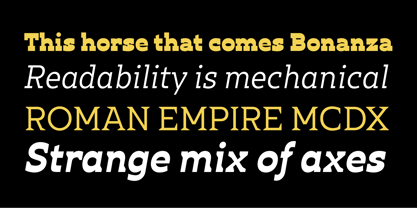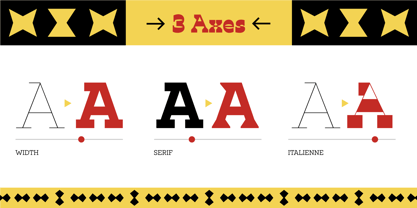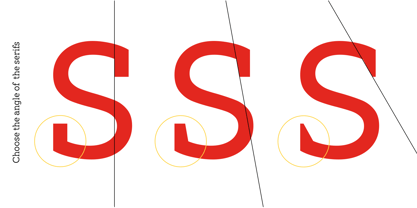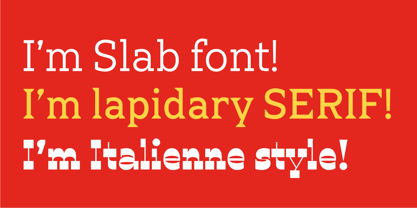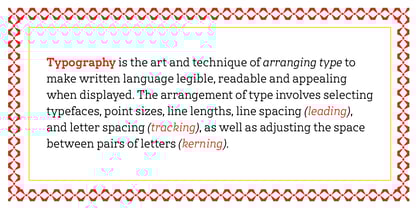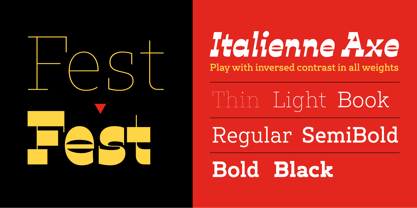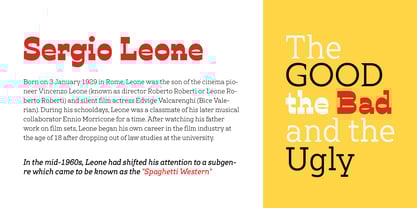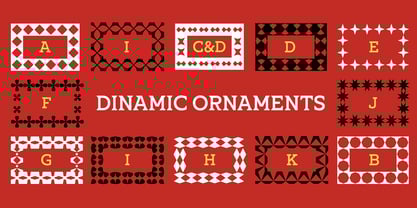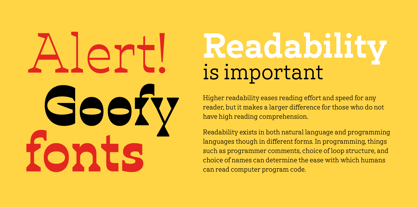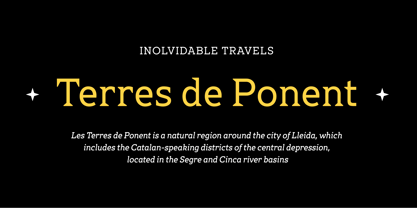
Ponent
by Tipo Pèpel
The Ponent Font Family was designed by Josep Patau and published by Tipo Pèpel. Ponent contains 58 styles and family package options.
Born from a bold geometric structure with confident slab serifs—whose slant and height adapt to your needs—Ponent is a true chameleon typeface made to shine in long texts. From pure slab to elegant Roman lapidary to daring inverted Italian, Ponent effortlessly transforms, becoming a reliable workhorse for everyday design. And that’s not all: discover a playful set of dynamic styles that unlock thousands of possibilities for stunning decorative borders—an Easter egg that will spark your creativity and make you smile.
About Tipo Pèpel
Located in a small town, Les Borges Blanques, Spain, Tipo Pèpel is a digital type foundry run by Josep Patau. The self-taught designer began producing experimental typefaces in 1996 and started selling them through MyFonts in 2011. His debut font, Anduaga, was a revival from Joseph de Anduaga y Garimberti, the XVII´s famous spanish calligrapher. Since then, his library had expanded to include nearly two dozen font families, each of which is unique and reflects the small country town he comes from with a familiar rural feel. Some of Josep’s best selling typefaces, including Pobla, Bridone, and Cinta, really demonstrate the impact his home has on his designs, while Boxed, a semi-modular geometric font, is a step outside of this theme. “All of my projects excite me and I put my best into each of them, doing everything with my own two hands,” Josep says. “I treat them all like my children.” With a focus on the details and creating high quality drawings, each of his fonts offers an extended character map that is fully capable with OpenType features. He also diligently insures that each of his typefaces is legible in all sizes. “I think that this is one of my goals because I always begin my designs by thinking about the final use if the font,” he says. “I worry about this a lot, so I do thousands of tests before launching the final font to ensure high quality standards and full satisfaction for final users.”